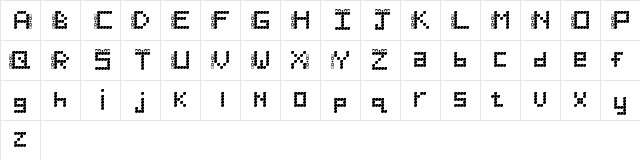
Jessica Jordan Regular
| Designer | JJK |
Design Context for Jessica Jordan Typeface
Jessica Jordan is a composed and adaptable typeface that performs quietly and consistently across a wide range of design contexts.